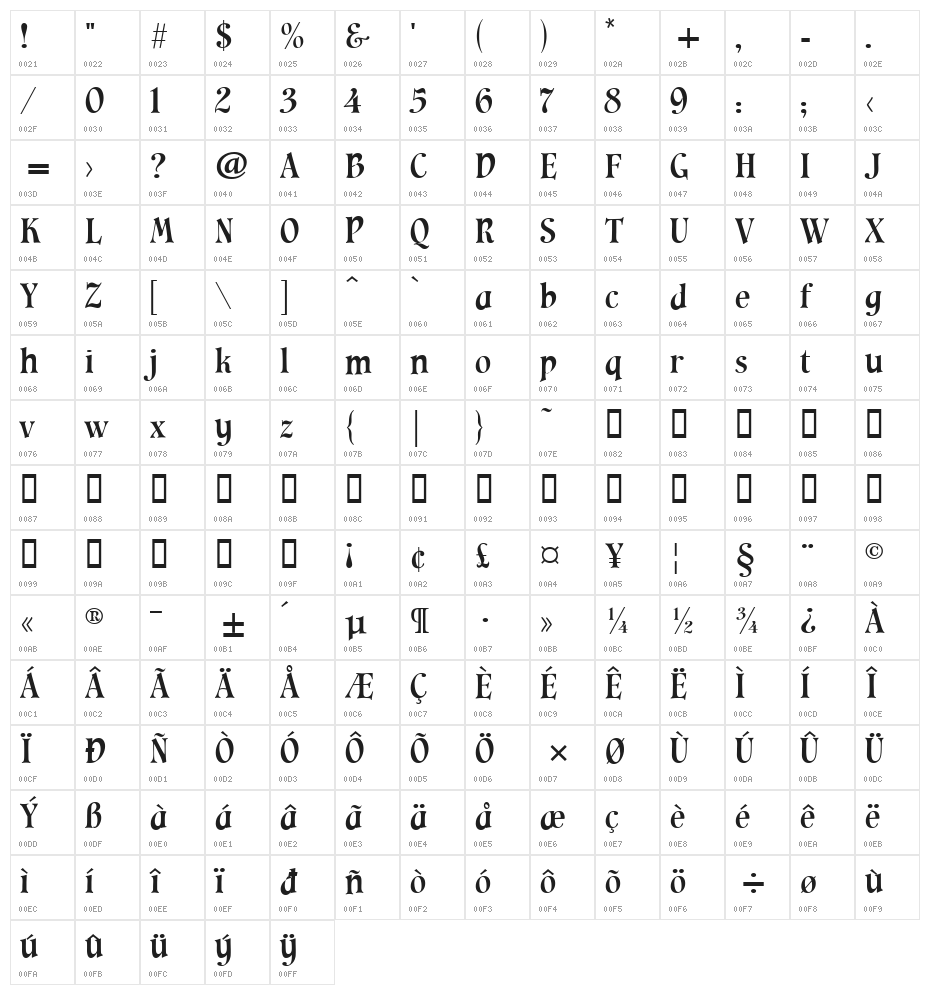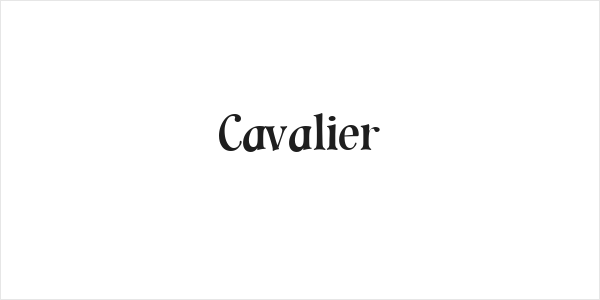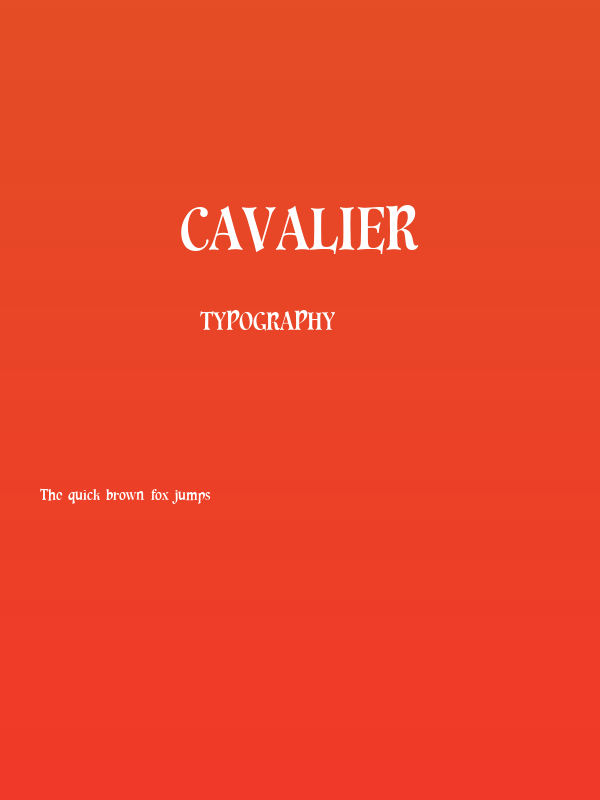
Cavalier Font
Cavalier Description
This font features a bold and dynamic style with a strong presence. The uppercase letters exhibit a classic serif design with slightly exaggerated curves and sharp edges, giving them a distinctive and elegant appearance. The lowercase letters maintain a consistent style, with rounded forms and a smooth flow that complements the uppercase. The numerals are bold and clear, ensuring readability while maintaining the overall aesthetic. Special characters are thoughtfully designed, integrating seamlessly with the rest of the font. This font's unique blend of traditional serif elements with a modern twist makes it versatile for various design applications.
Use CaseHeadlines, Logos, Editorial design
Proposed ProjectsIdeal for branding, editorial design, book covers, and high-impact headlines.